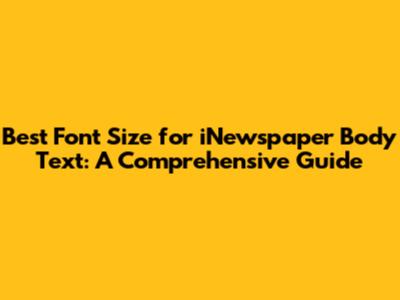
Choosing the right font size for the body text of your iNewspaper is super important. It affects how easy it is for people to read and enjoy your content. Get it wrong, and you might lose readers. Get it right, and you'll keep them hooked! Let's dive into what makes a good font size and how to pick the best one for your digital newspaper.
Why Font Size Matters
Font size plays a huge role in readability. Think about it: if the text is too small, people will strain their eyes, and if it's too large, it can feel overwhelming. The goal is to find that sweet spot where readers can comfortably consume your content without any extra effort. When readers find your iNewspaper easy on the eyes, they're more likely to stick around and read more articles. This can lead to increased engagement and a loyal readership. Also, a well-chosen font size contributes to the overall professional look and feel of your iNewspaper. It shows that you care about the reader experience and are committed to delivering high-quality content. Usability is also key, especially for older readers or those with visual impairments. Making your text accessible to everyone ensures a broader audience can enjoy your publication. By considering these factors, you can create an iNewspaper that not only looks great but also provides a seamless and enjoyable reading experience for all your subscribers. This attention to detail can set your publication apart and foster a strong connection with your audience. Remember, the ultimate aim is to deliver news in a format that is both informative and easy to digest, making your iNewspaper a go-to source for reliable and engaging content.
Factors to Consider When Choosing Font Size
Several factors influence the ideal font size for your iNewspaper's body text. First off, think about your target audience. Are you catering to a younger crowd or an older demographic? Older readers might appreciate a slightly larger font size for better readability. Next, consider the font itself. Some fonts appear larger than others even at the same point size. For example, a font like Arial might seem bigger compared to Times New Roman at 12pt. So, it's essential to test different fonts and sizes to see what works best visually. The device your readers are using also matters. iNewspapers are often viewed on various devices, from smartphones to tablets and desktops. A font size that looks great on a desktop might be too small on a smartphone screen. Responsive design can help adjust font sizes based on the screen size, ensuring a consistent reading experience across all devices. Also, think about the lighting conditions in which your iNewspaper is likely to be read. In bright sunlight, smaller fonts might be harder to read, whereas in dimly lit environments, they might be just fine. Contrast between the text and background colors is another crucial factor. Ensure there's enough contrast to make the text easily readable. Dark text on a light background generally works best. Lastly, keep the overall design of your iNewspaper in mind. The font size should complement the layout and other design elements. A harmonious design will enhance the overall reading experience and make your iNewspaper more appealing to readers. Balancing all these factors will help you choose a font size that maximizes readability and engagement.
Recommended Font Sizes for iNewspaper Body Text
Generally, a font size between 16pt and 18pt is a good starting point for iNewspaper body text. This range tends to provide a comfortable reading experience for most users on various devices. However, it's not a one-size-fits-all solution. You might need to adjust based on the specific font you're using and the factors mentioned earlier. For example, if you're using a font that appears smaller, you might want to bump up the size to 18pt or even 19pt. On the other hand, if the font seems quite large, 16pt or 17pt might be sufficient. It's also a good idea to consider the line height, which is the vertical space between lines of text. A line height of around 1.5 times the font size is often recommended. This helps to improve readability by preventing the lines of text from feeling too cramped. Don't hesitate to experiment with different font sizes and line heights to find what looks best for your iNewspaper. Get feedback from your readers, too. Ask them what they find most readable and comfortable. This can provide valuable insights and help you fine-tune your settings. Remember, the goal is to create an iNewspaper that is easy and enjoyable to read, so taking the time to optimize your font size and line height is well worth the effort. This attention to detail can make a big difference in reader engagement and satisfaction.
Best Fonts for iNewspaper Body Text
Choosing the right font is just as crucial as selecting the right font size. Some fonts are simply more readable on screens than others. Serif fonts, like Times New Roman, have small decorative strokes at the end of each letter, which can sometimes make them appear cluttered on screens. Sans-serif fonts, such as Arial, Helvetica, and Open Sans, tend to be cleaner and easier to read digitally. Open Sans is a particularly popular choice for web content due to its modern and friendly appearance. Another great option is Roboto, a sans-serif font that's widely used on Android devices. It's highly legible and works well in a variety of sizes. Lato is another excellent choice. It has a sleek and modern look while maintaining excellent readability. When selecting a font, consider the overall tone and style of your iNewspaper. A more traditional publication might opt for a font like Georgia, which has a classic serif feel but is still readable on screens. A more modern publication might prefer a cleaner sans-serif font like Montserrat. It's also important to ensure that the font you choose is available on most devices and browsers. Using a common font or embedding the font in your iNewspaper can help ensure that your readers see the text as intended. Ultimately, the best font is one that is both visually appealing and highly readable, enhancing the overall reading experience for your audience. So, take the time to explore different fonts and find one that perfectly complements your content and design.
How to Adjust Font Size in Your iNewspaper Platform
Adjusting the font size in your iNewspaper platform is usually pretty straightforward, but the exact steps can vary depending on the platform you're using. Most platforms offer customization options within their settings or design interface. Look for a section labeled "Typography," "Fonts," or "Appearance." Here, you should find options to change the font size, font family, line height, and other text-related settings. If you're using a content management system (CMS) like WordPress, you can often adjust font sizes using the theme customization options or by editing the CSS stylesheet. Many WordPress themes come with built-in settings for typography, allowing you to easily change the font size for different elements of your iNewspaper, such as the body text, headings, and captions. If you're comfortable with code, you can also modify the CSS file to fine-tune the font sizes and styles. For other iNewspaper platforms, the process might involve using a visual editor or a drag-and-drop interface. These tools often allow you to select text elements and change their font sizes directly. Remember to preview your changes on different devices to ensure that the font size looks good on both desktops and mobile devices. Responsive design is key to providing a consistent reading experience across all platforms. Also, be sure to save your changes after making adjustments. Some platforms automatically save your progress, while others require you to manually save your settings. By familiarizing yourself with the font size adjustment options in your iNewspaper platform, you can easily customize the appearance of your text and create a more enjoyable reading experience for your audience.
Testing and Getting Feedback
Before you finalize your font size choice, it's crucial to test it out with real readers and get their feedback. What looks good to you might not be as readable for others. Start by asking a small group of people to read a sample article on different devices. This will give you a good idea of how the font size appears on various screens and under different lighting conditions. Ask your testers to focus on readability and comfort. Do they find the text easy to read? Do they have to strain their eyes? Is the font size too large or too small? Also, ask for feedback on the overall design and layout. Does the font size complement the other design elements? Does it create a harmonious and visually appealing reading experience? You can gather feedback through surveys, questionnaires, or informal interviews. Online survey tools like SurveyMonkey or Google Forms can be helpful for collecting feedback from a larger audience. Pay attention to any patterns or trends in the responses. If most testers say that the font size is too small on mobile devices, you might need to increase it. If they say that the text feels too cramped, you might need to adjust the line height. Use the feedback to fine-tune your font size settings. Don't be afraid to experiment and make adjustments until you find what works best for your audience. Remember, the goal is to create an iNewspaper that is easy and enjoyable to read, so taking the time to get feedback and make improvements is well worth the effort. This iterative process will help you optimize your typography and create a better reading experience for your subscribers.
Common Mistakes to Avoid
When choosing a font size for your iNewspaper, there are several common mistakes you should avoid. One of the biggest mistakes is using a font size that is too small. While it might seem like a way to fit more text on the page, it can make your content difficult to read and deter readers. Another common mistake is failing to consider the font itself. Some fonts appear smaller than others, even at the same point size. So, it's important to test different fonts and sizes to see what works best visually. Ignoring line height is another mistake to avoid. A line height that is too small can make the text feel cramped and difficult to read. A line height that is too large can create too much space between the lines, making it harder to follow the text. Failing to consider the device your readers are using is another common mistake. A font size that looks great on a desktop might be too small on a smartphone screen. Responsive design can help adjust font sizes based on the screen size, ensuring a consistent reading experience across all devices. Also, be sure to avoid using too many different font sizes and styles. This can create a cluttered and inconsistent look. Stick to a limited number of font sizes and styles to maintain a clean and professional appearance. Lastly, don't forget to test your font size choice with real readers and get their feedback. What looks good to you might not be as readable for others. By avoiding these common mistakes, you can choose a font size that maximizes readability and engagement, creating a better reading experience for your audience.
Choosing the perfect font size for your iNewspaper's body text is a balancing act, guys! You've got to think about your audience, the font itself, the devices they're using, and even the lighting conditions. Aim for that sweet spot between 16pt and 18pt, but don't be afraid to tweak it based on feedback and testing. And remember, readability is king! Make it easy on the eyes, and your readers will thank you by sticking around for more. So go forth and create an iNewspaper that's not only informative but also a joy to read! You got this!